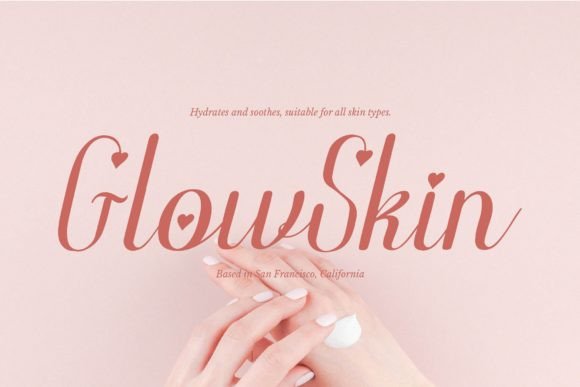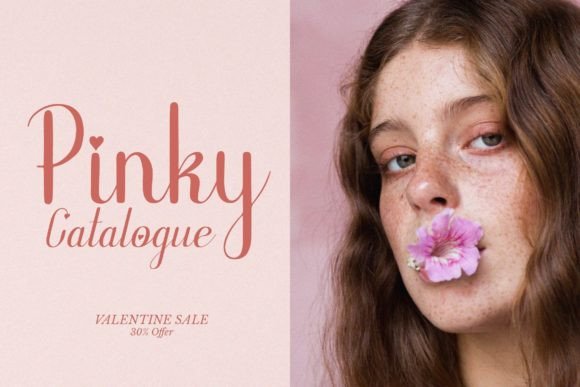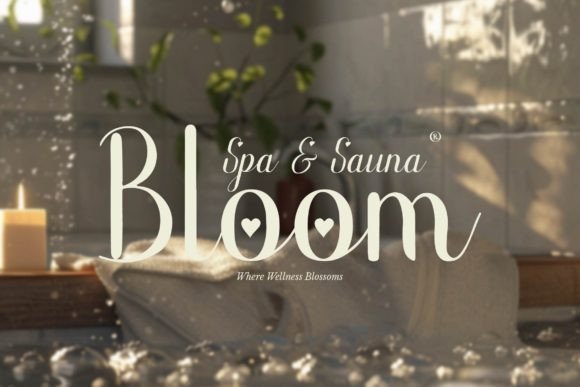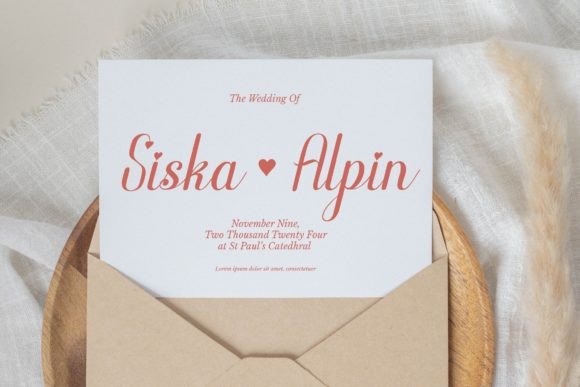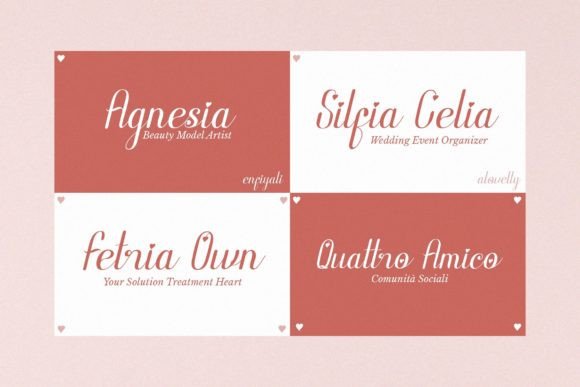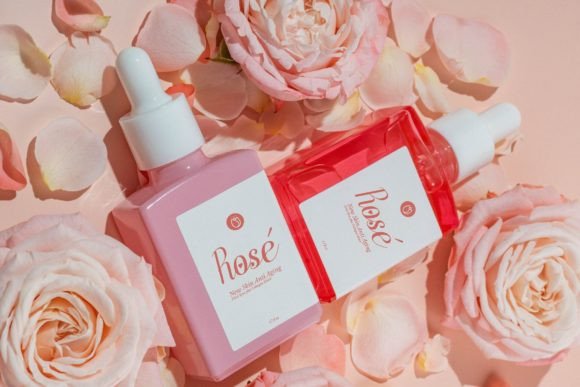
Enfiyali Alovelly Font: The Perfect Blend of Elegance and Love
In the world of typography, fonts play a crucial role in conveying emotions and setting the tone for a design project. For designers and crafters looking to add a touch of romance and sophistication to their work, the Enfiyali Alovelly font is an excellent choice. This modern script font seamlessly blends elegance with love, making it perfect for a wide range of applications, from wedding invitations to heartfelt messages.
What is Enfiyali Alovelly Font?
Enfiyali Alovelly is a beautifully crafted script font that boasts flowing lines and stylish curves. Its unique design makes it stand out from other fonts, offering a fresh and modern take on traditional script typography. The font’s elegant appearance is balanced by a sense of playfulness, making it versatile and easy to use in various design projects.
Key Features of Enfiyali Alovelly Font
- Elegant and Modern Design: Enfiyali Alovelly features a contemporary script style that is both elegant and trendy. Its unique letterforms make it perfect for designs that require a touch of sophistication.
- Flowing Lines and Curves: The font’s flowing lines and stylish curves give it a dynamic and fluid appearance, making it ideal for creating beautiful and eye-catching text.
- Perfect for Romantic Occasions: Whether you’re designing wedding invitations, Valentine’s Day cards, or any other project that requires a romantic touch, Enfiyali Alovelly is the perfect choice.
- Versatile and Easy to Use: This font is not just limited to romantic designs. Its versatility makes it suitable for a wide range of projects, including branding, packaging, and more.
Uses of Enfiyali Alovelly Font
The Enfiyali Alovelly font is incredibly versatile and can be used in a variety of design projects. Here are some popular uses:
- Wedding Invitations: Add a touch of elegance and romance to your wedding invitations with Enfiyali Alovelly. Its beautiful script style makes it perfect for formal and informal wedding designs.
- Valentine’s Day Cards: Express your love and affection with a heartfelt Valentine’s Day card designed using Enfiyali Alovelly font.
- Branding and Packaging: Use Enfiyali Alovelly to create a unique and memorable brand identity. Its elegant design makes it suitable for luxury brands, beauty products, and more.
- Social Media Graphics: Add a touch of romance and sophistication to your social media graphics, including Facebook posts, Instagram stories, and Twitter headers.
Tips for Using Enfiyali Alovelly Font
To get the most out of Enfiyali Alovelly font, here are some tips:
- Pair with Complementary Fonts: Combine Enfiyali Alovelly with complementary fonts to create a beautiful and harmonious design.
- Experiment with Colors: Try different color schemes to find the perfect combination that complements the font’s elegant design.
- Use for Headings and Titles: Enfiyali Alovelly is perfect for headings and titles. Use it to add a touch of elegance and sophistication to your design.
In conclusion, the Enfiyali Alovelly font is a beautiful and versatile script font that blends elegance with love. Its flowing lines and stylish curves make it perfect for adding a touch of romance to any design project. Whether you’re a designer or crafter, Enfiyali Alovelly is an excellent choice for a wide range of applications. With its elegant design, versatility, and ease of use, this font is sure to become a favorite in your design arsenal.